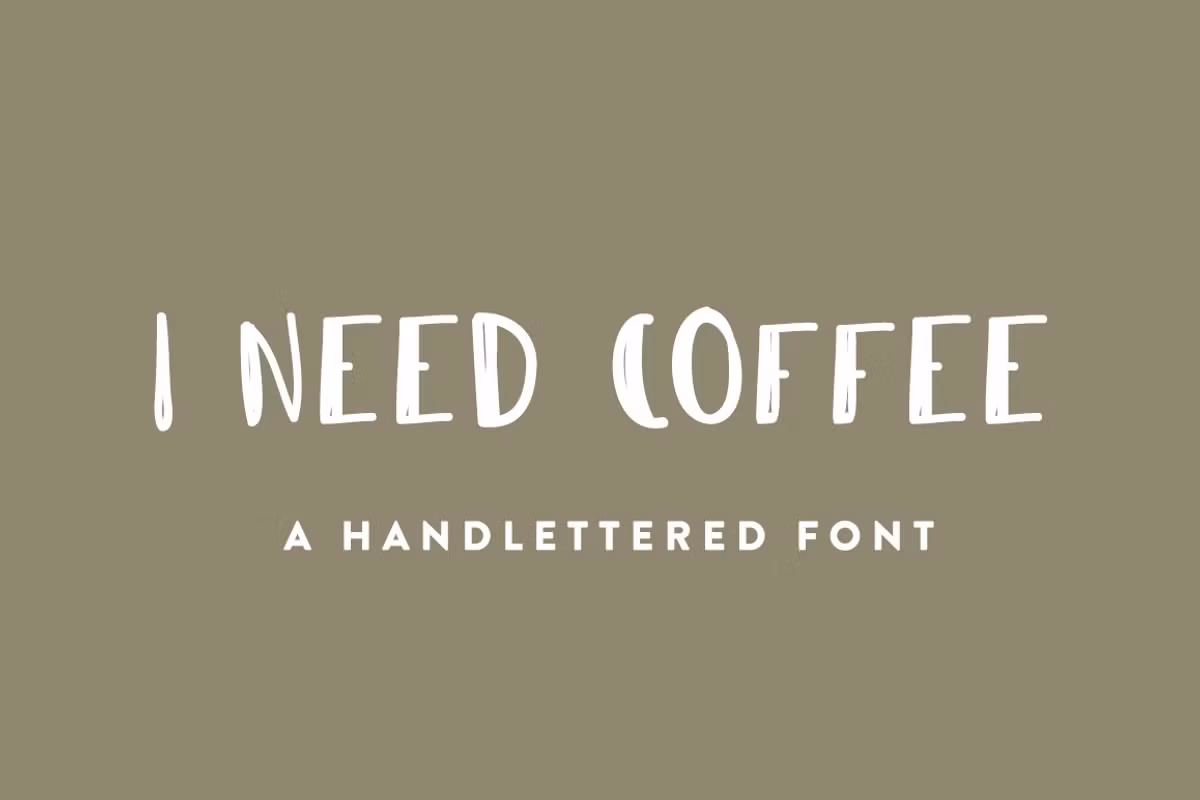
I Need Coffee Font Free Download
The I Need Coffee Font Free Download is a fun and quirky script typeface that brings a lively, creative touch to your designs. Perfect for creating custom logos, coffee shop branding, social media graphics, and event invitations, this font adds a playful and casual vibe to any project. Please note, for commercial use, a license must be purchased. You can download it for free for testing purposes.
With its bold, handwritten style and expressive letterforms, the I Need Coffee Font Free Download is ideal for projects that require a cheerful, energetic feel. Whether you’re designing for a coffee shop, cafe branding, or playful marketing materials, this font will make your designs stand out with its fun and relatable style.
Get the I Need Coffee Font Free Download today and add a touch of energy and creativity to your designs with this unique script font.